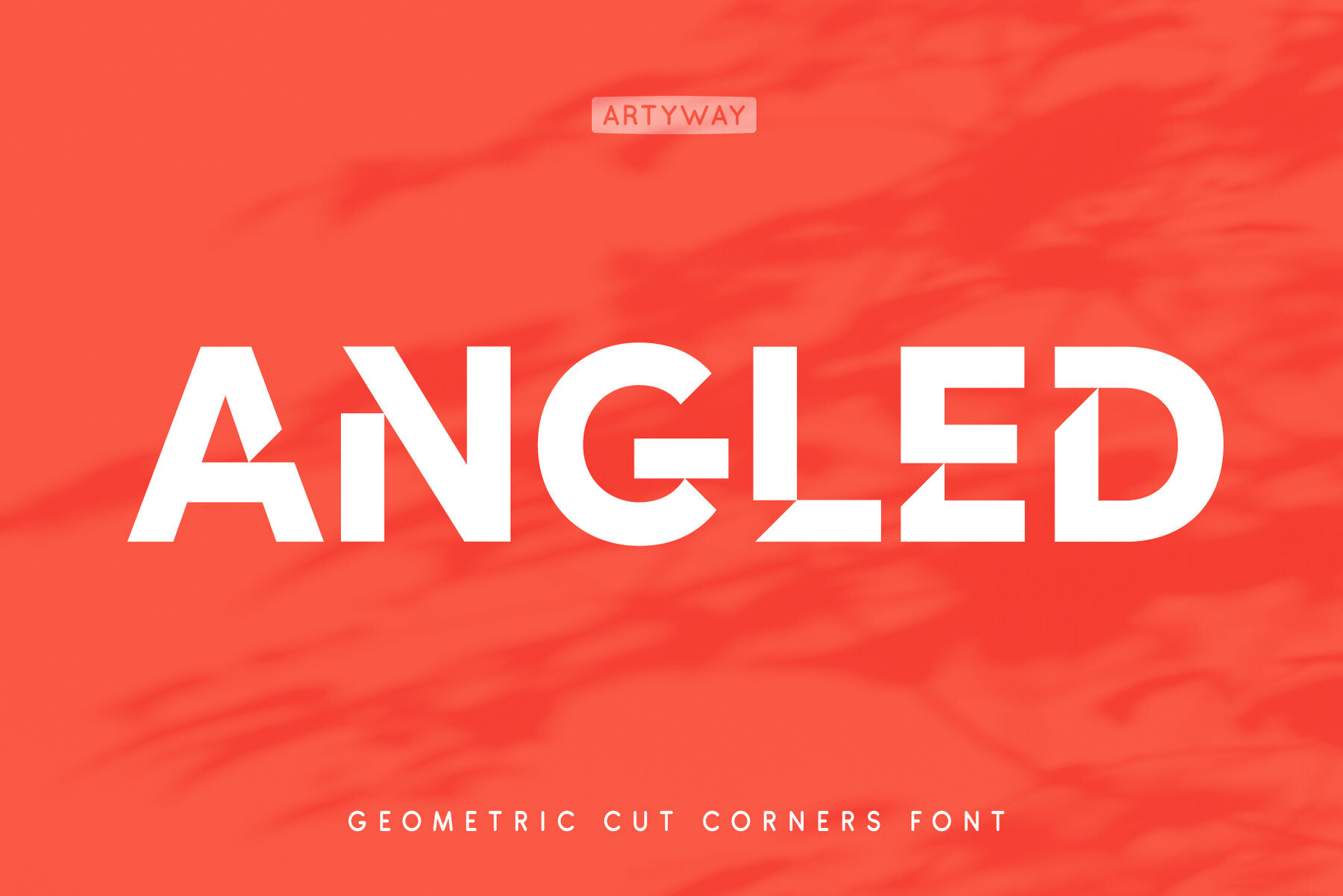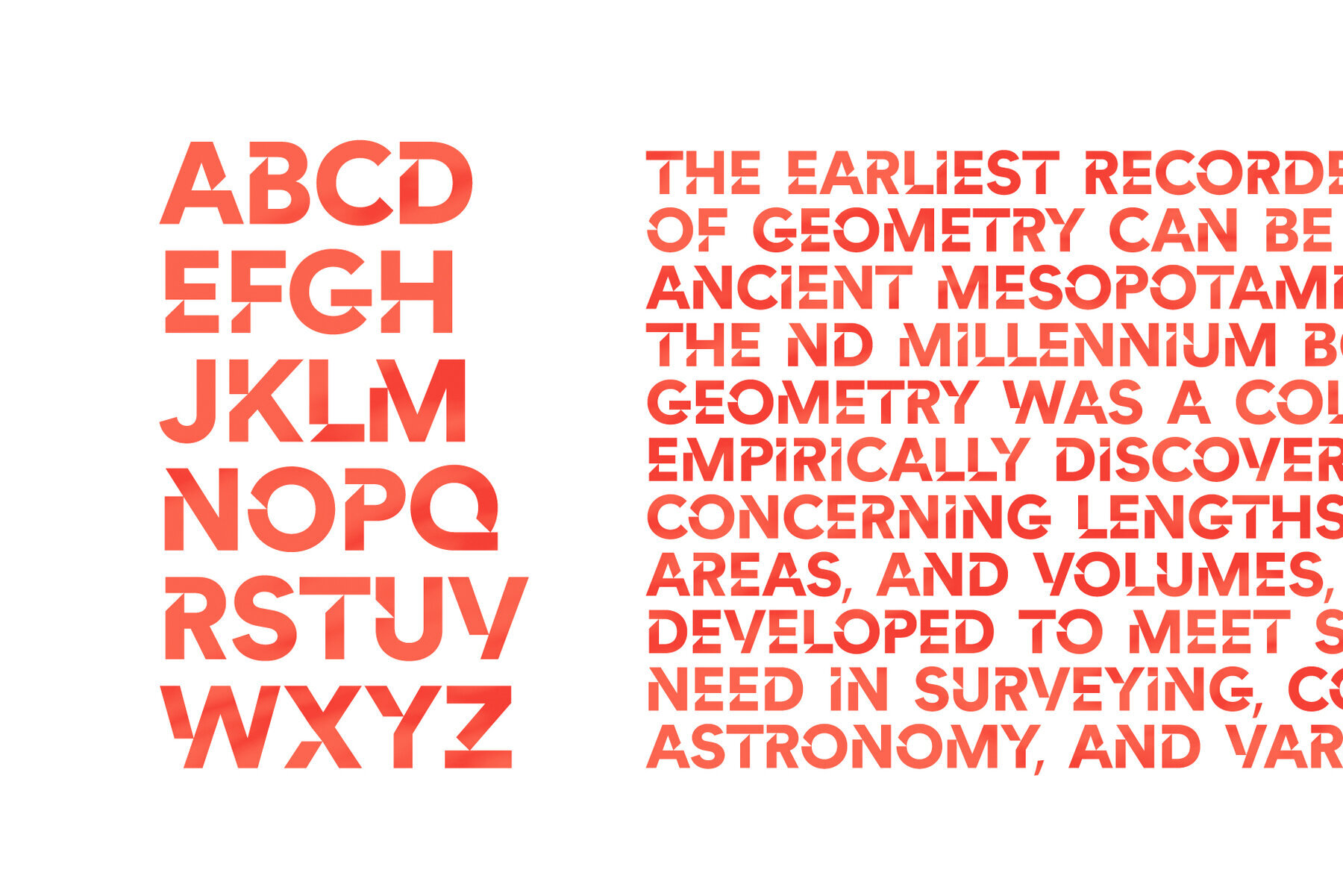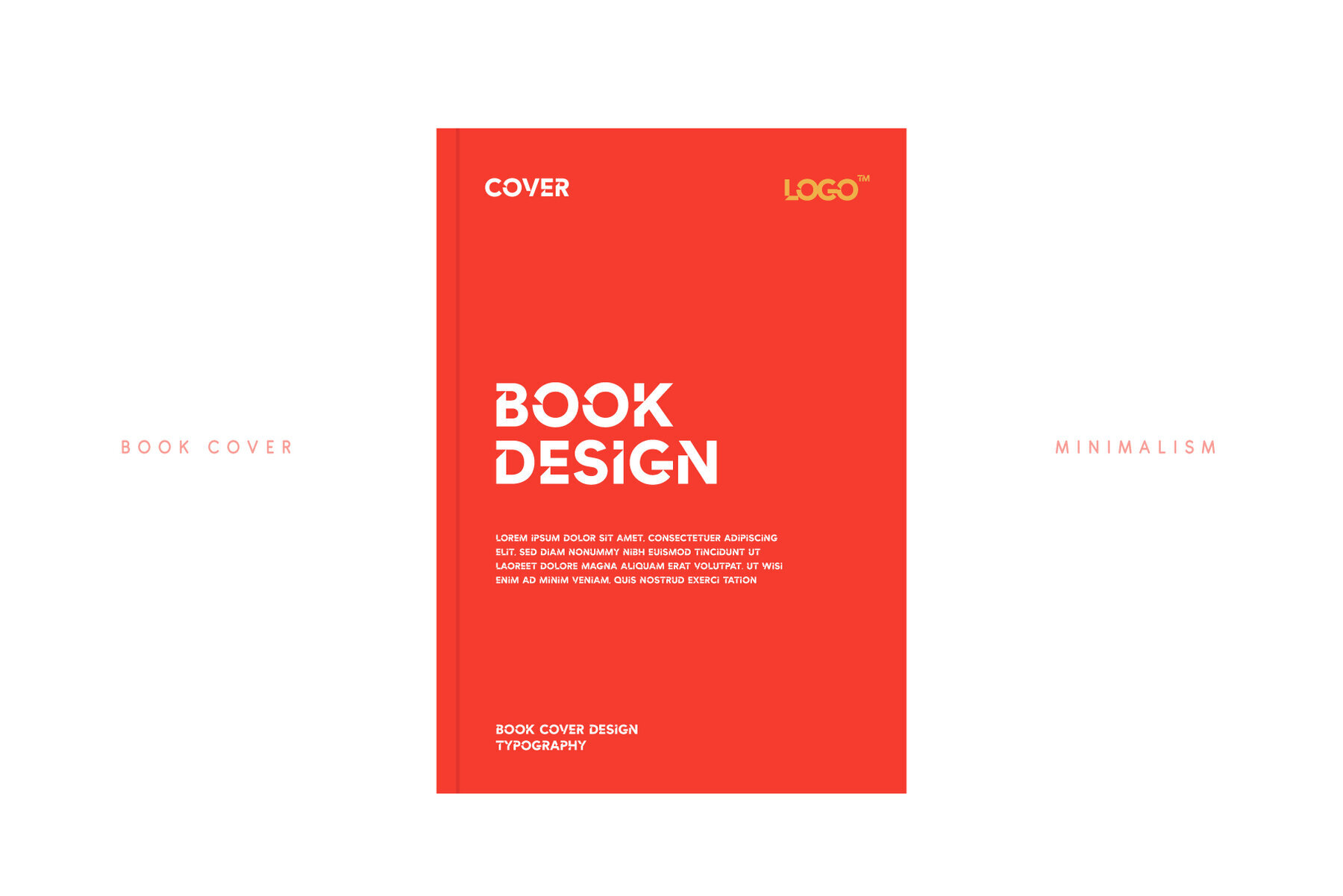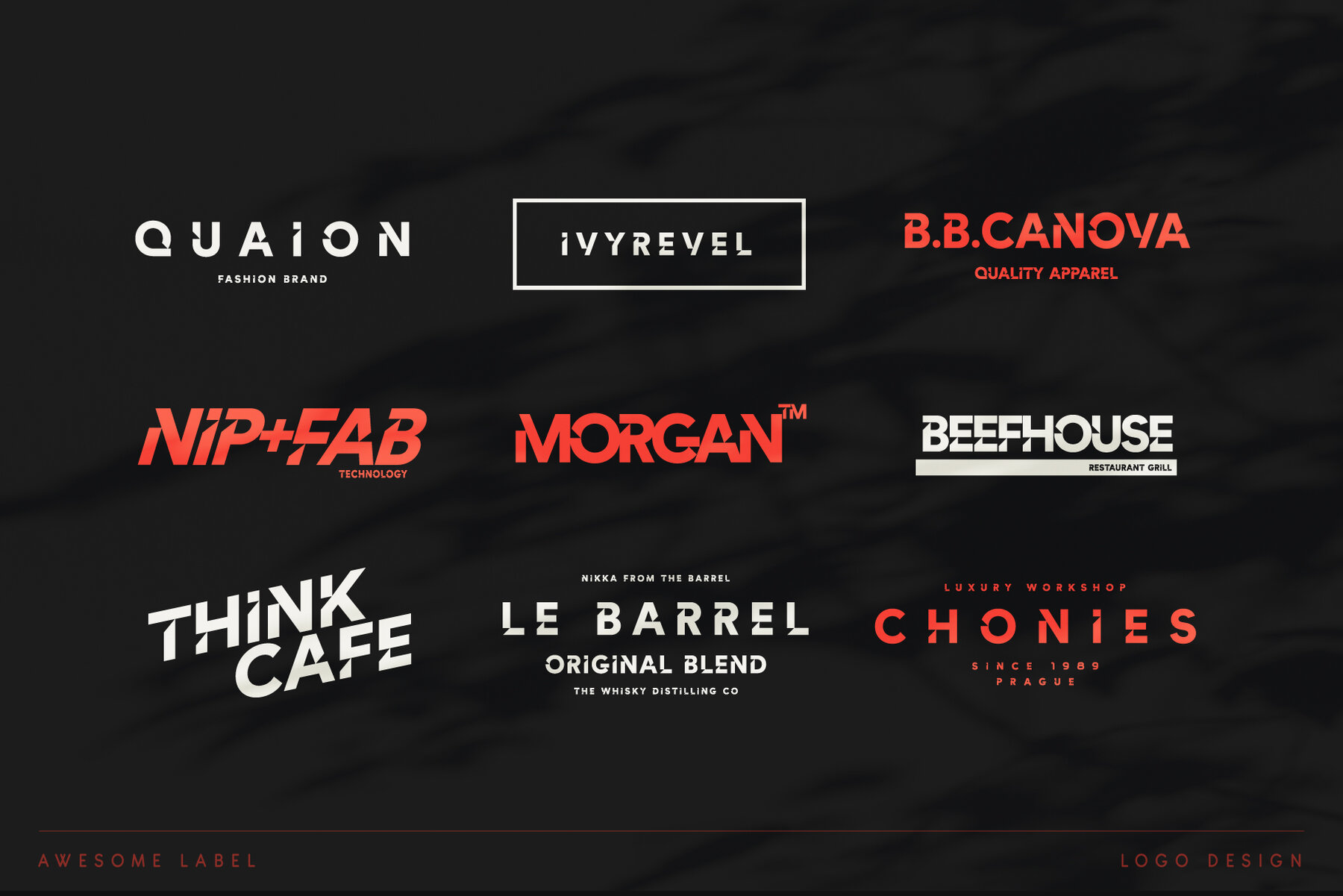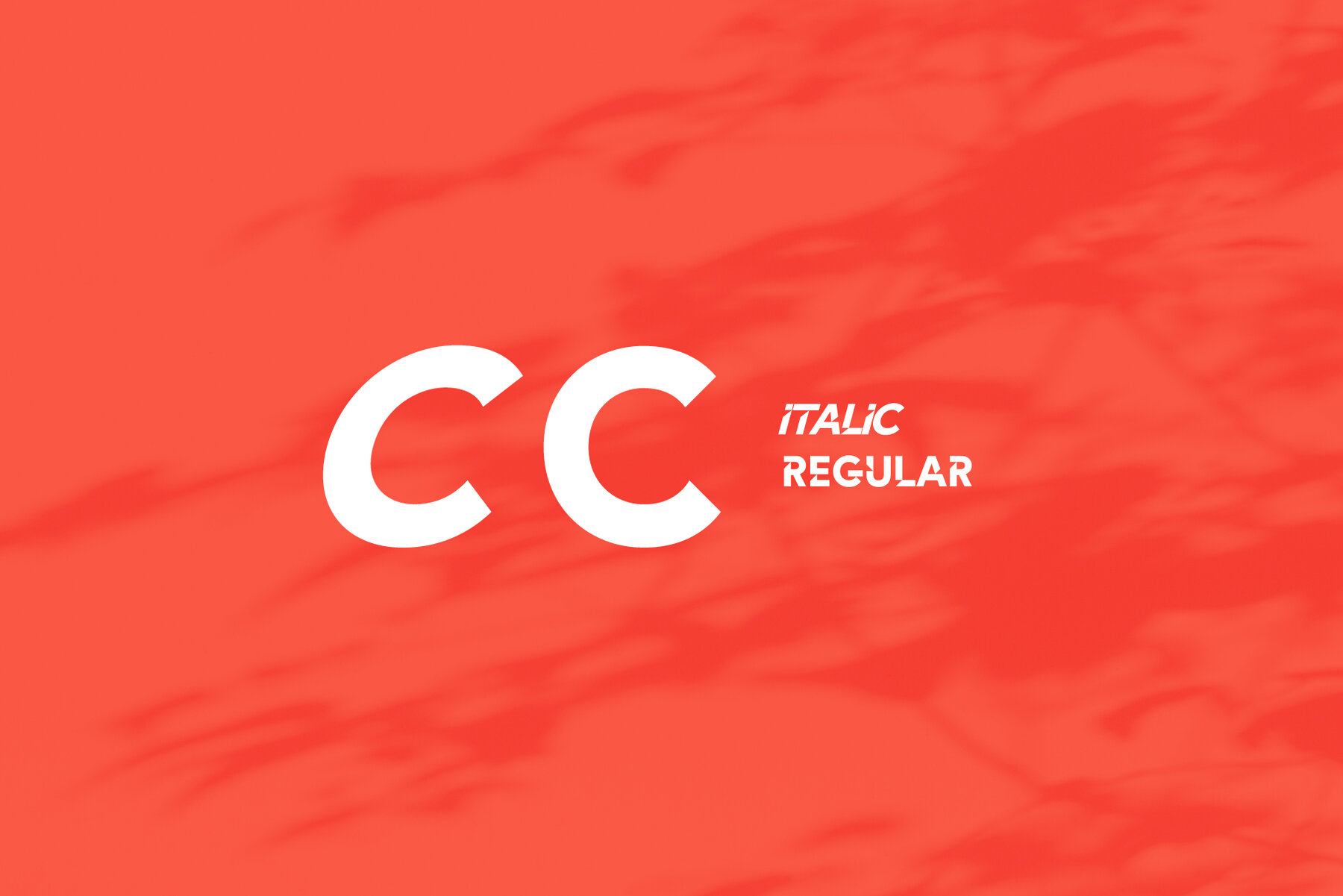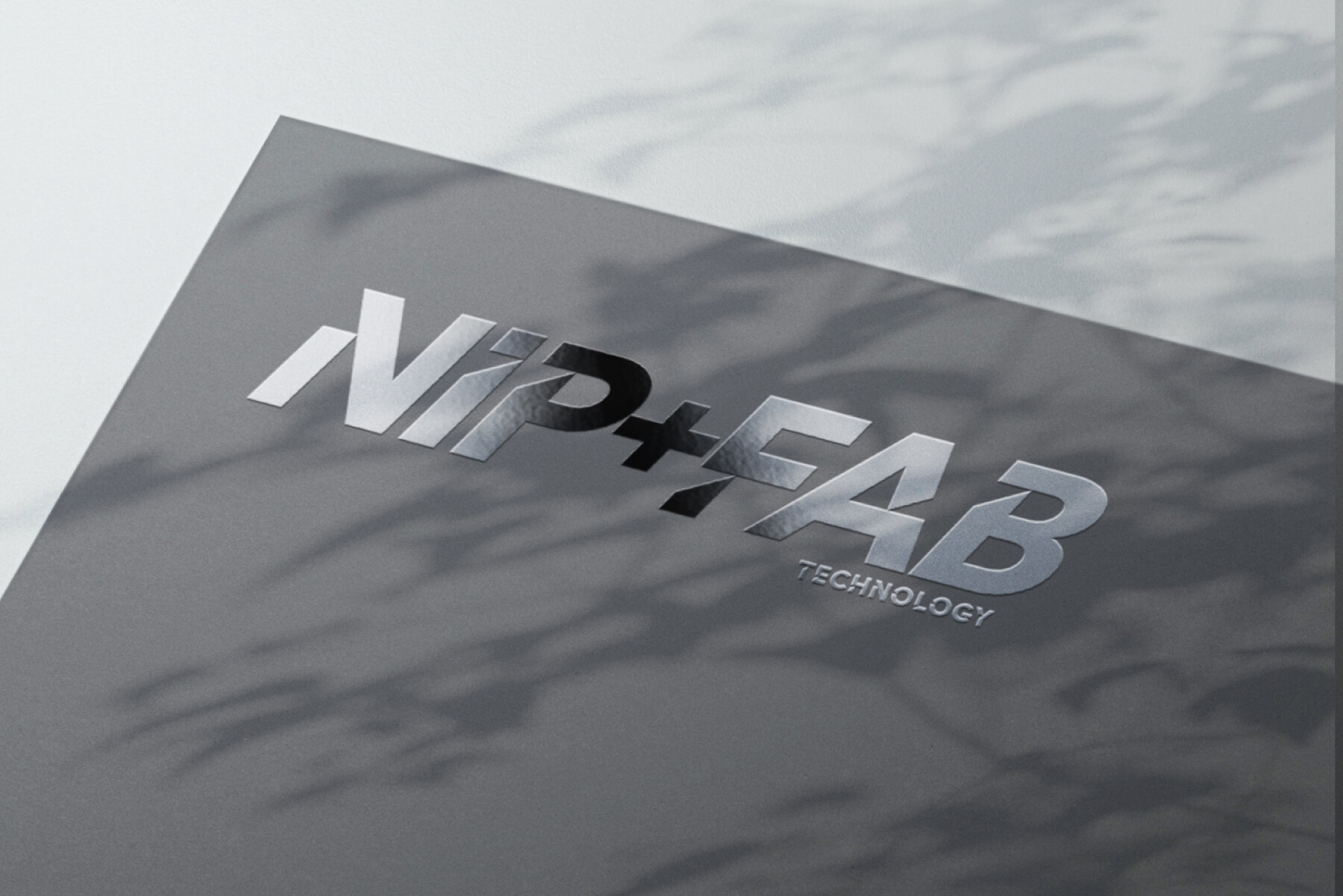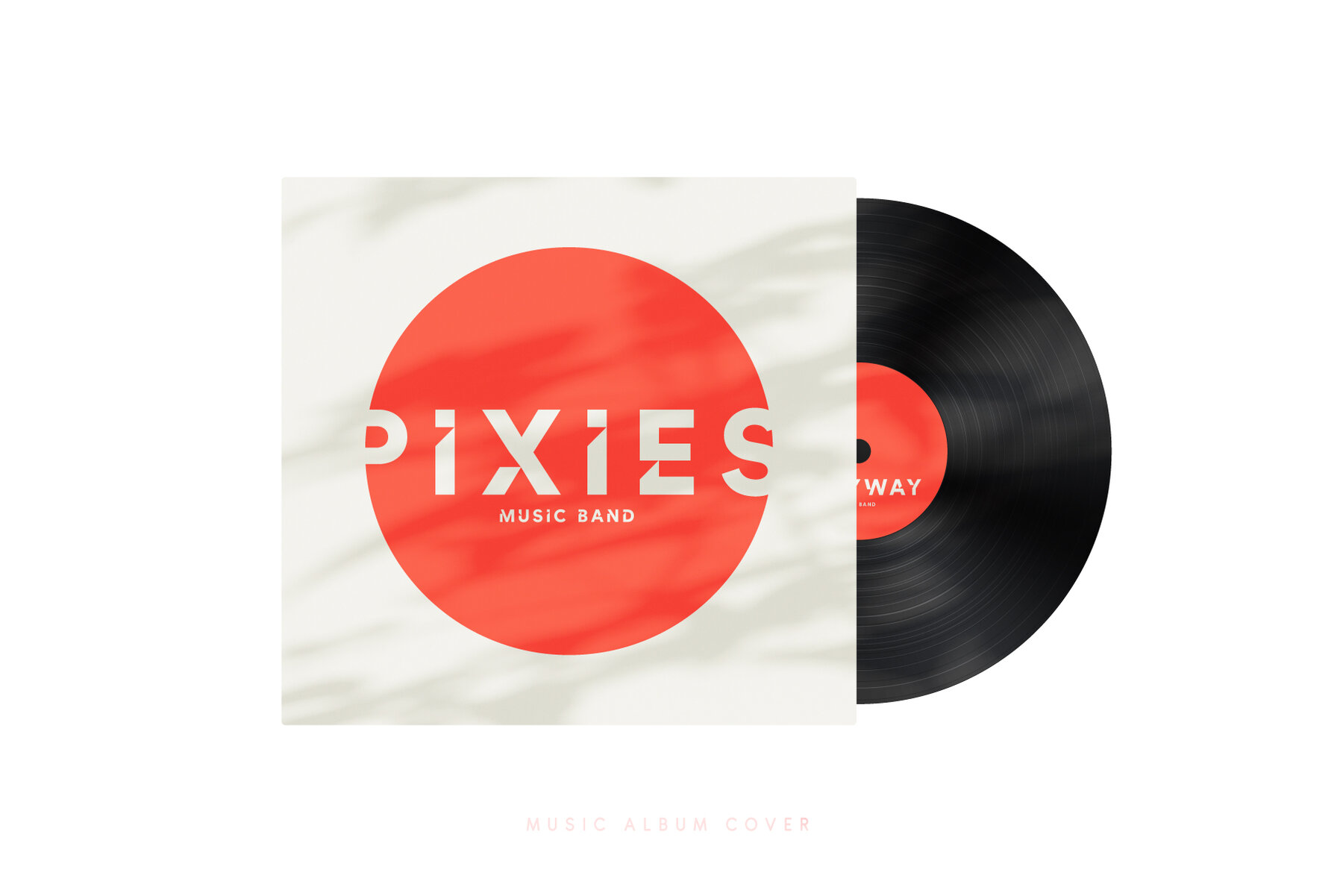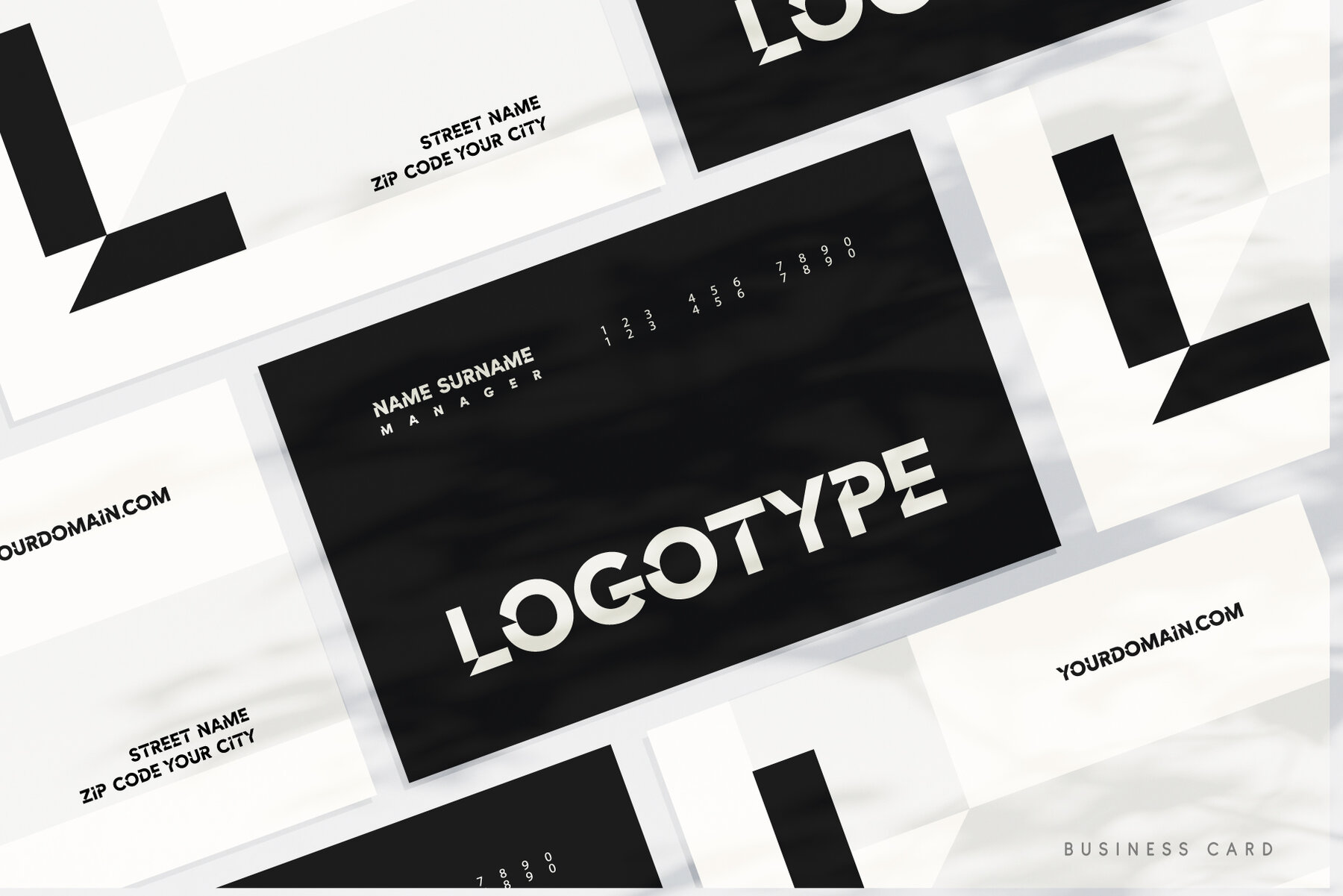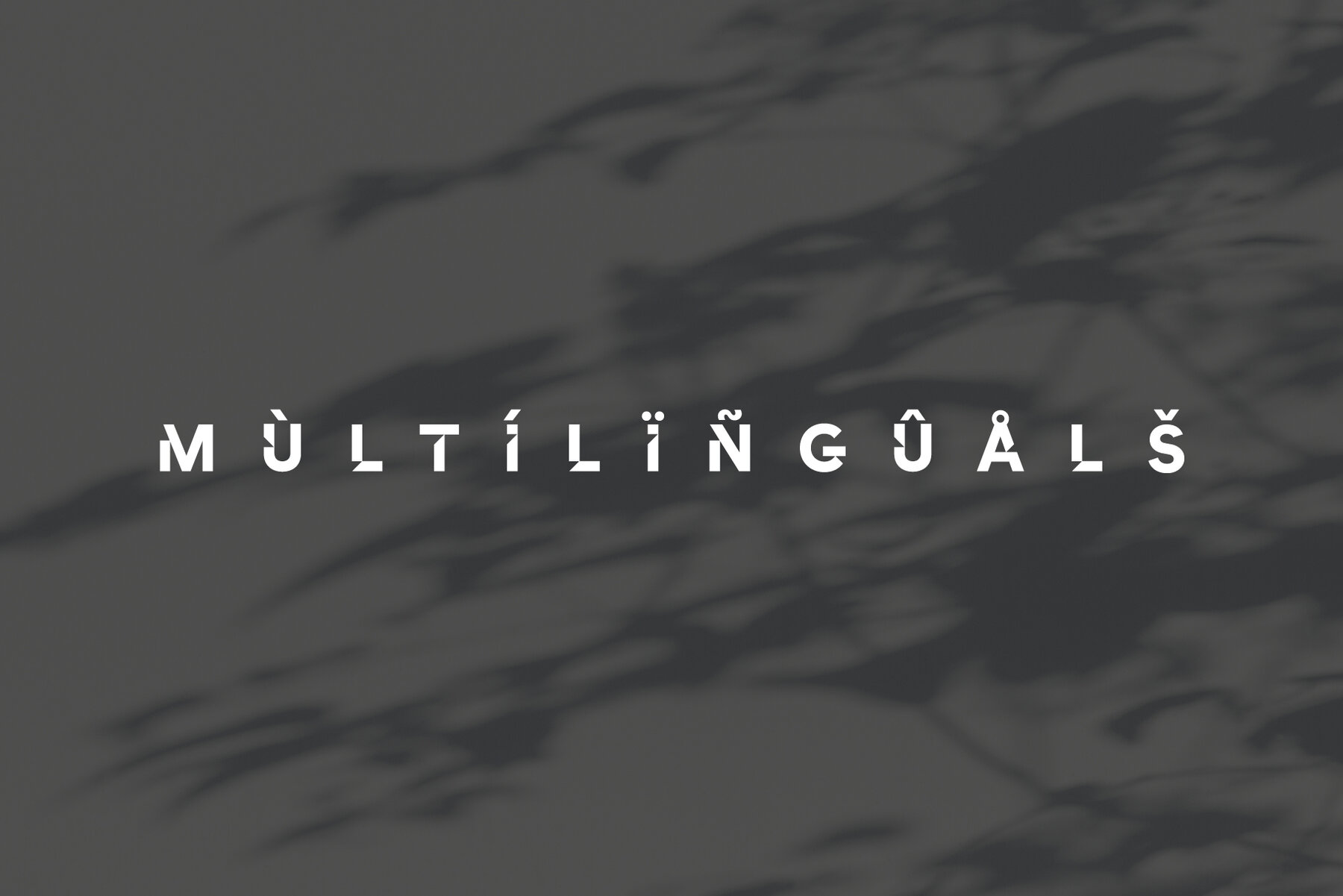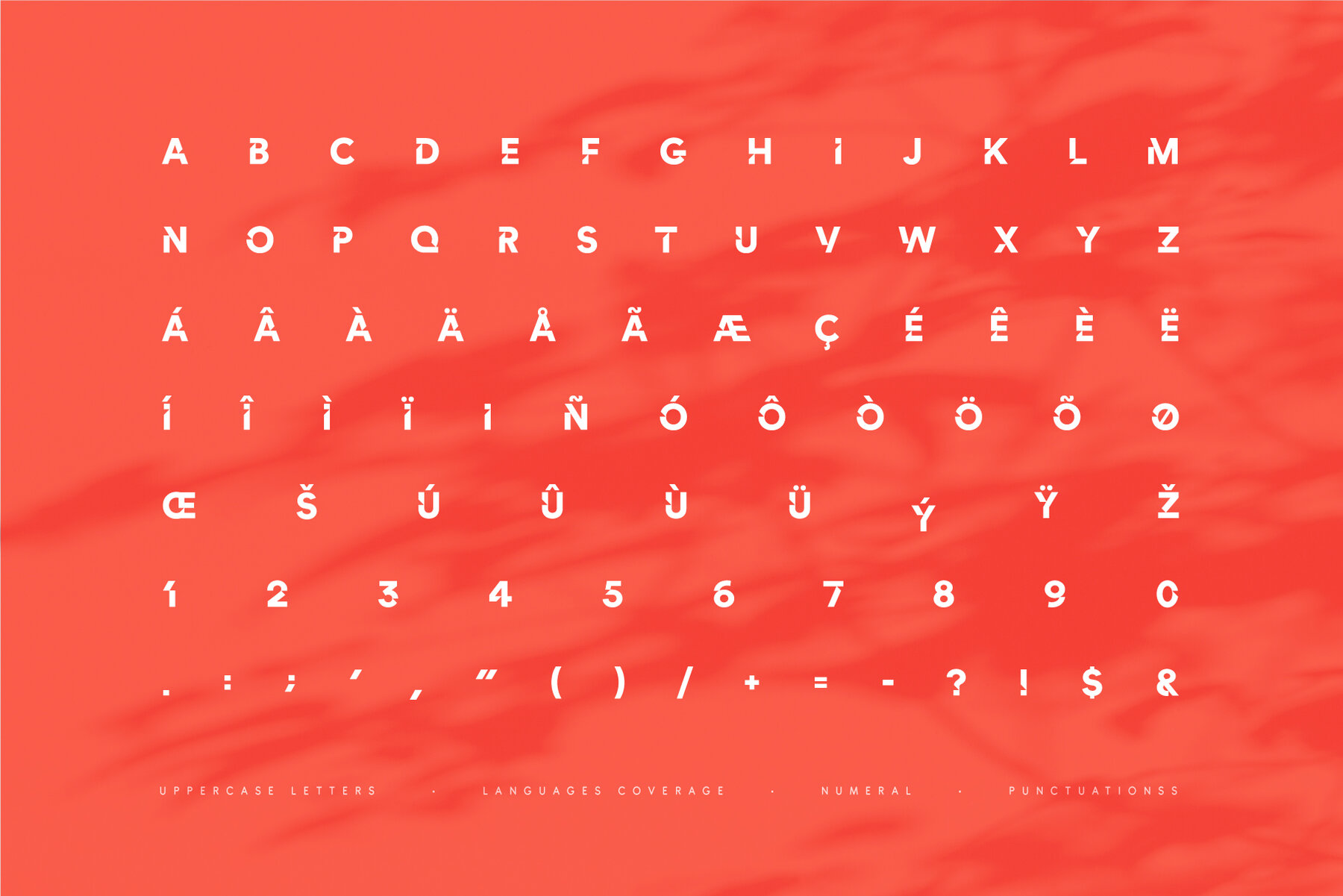
Angles Font
Angled Regular
Angled Italic
Introducing our bold font inspired by current trends in headline typography for digital platforms. Featuring beautiful geometric cutouts, this font is designed with precision. Feel free to utilize it in futuristic or gaming designs, GUI (Graphical User Interface), and HUD (Heads-Up Display).